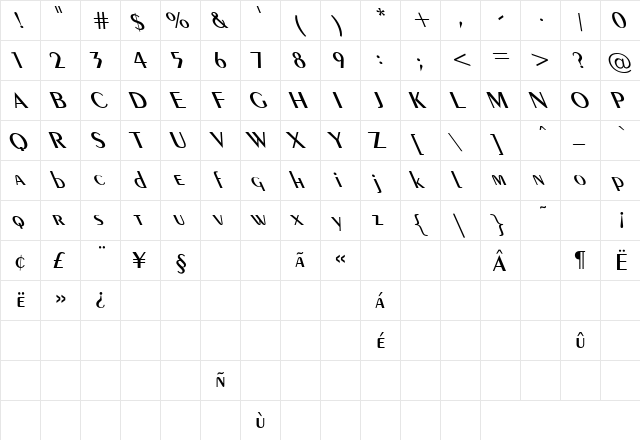
Exotic-Demi Lefty Regular
Design Context for Exotic-Demi Lefty Typeface
Exotic-Demi Lefty is a composed and adaptable typeface that performs quietly and consistently across a wide range of design contexts.
Pro Tip: Use Exotic-Demi Lefty in both headline and body roles to test its range before committing to a single application.